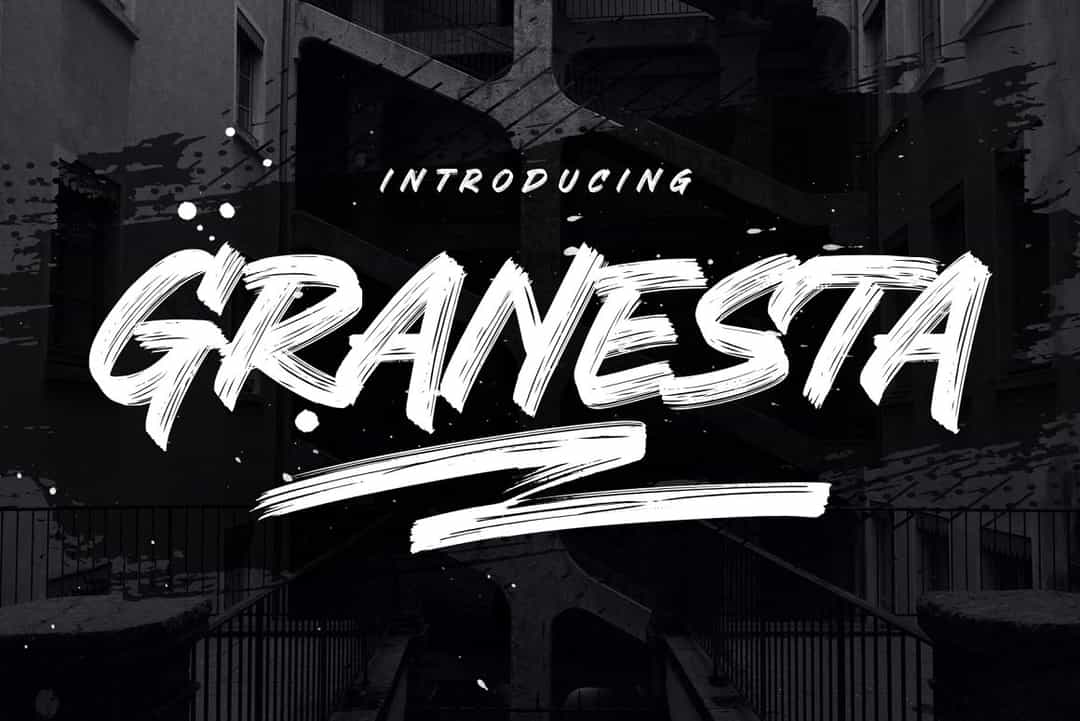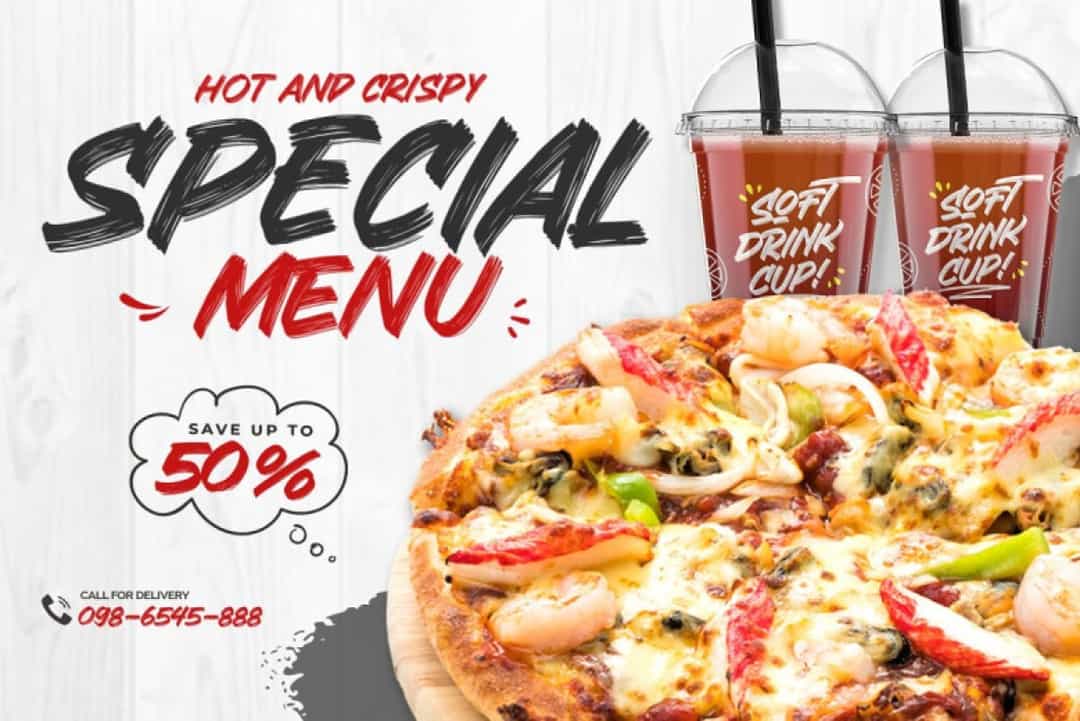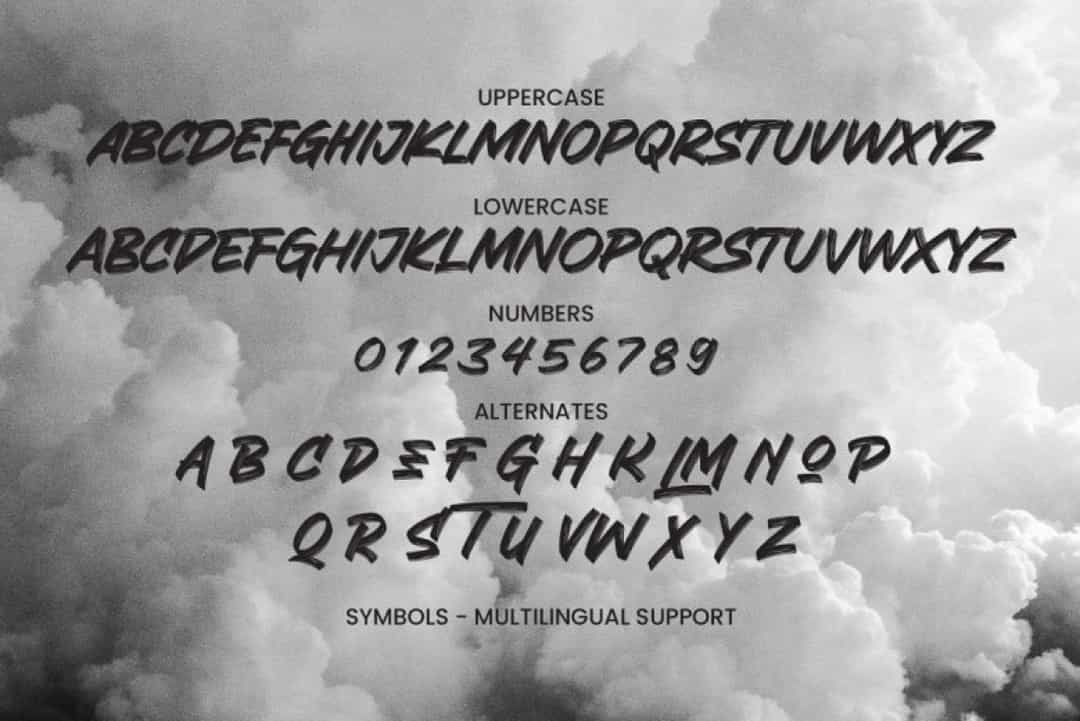
Granesta Granesta, our freestyle brush font that pulsates with vitality. Crafted using digital brush strokes, then meticulously vectorized for preservation, Granesta is an eye-catching typeface perfect for streets where its strong message can make an impactful statement.